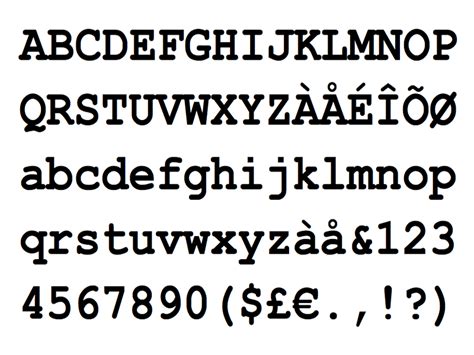
This Font Changed Everything—Discover the Secrets of the Courier Style!
Why a Classic Typeface Sparked a Digital Resurgence Across the U.S.
In the ever-shifting world of digital design, subtle details often fuel major trends—one such shift is quietly shaping how content is perceived online: This Font Changed Everything—Discover the Secrets of the Courier Style! Once a staple of mid-century typography, this bold, structured typeface has resurfaced with surprising relevance, becoming a go-to choice for brands, creators, and educators aiming for clarity and credibility. No flashy redesigns or viral hashtags—just timeless design that speaks louder in today’s noisy digital landscape. This font isn’t just ink on a screen; it’s a foundation for clarity, professionalism, and connection.
Why This Font Changed Everything—The Curourier Style Is Back in the Spotlight
In recent years, digital interfaces have grown denser and more chaotic. Amid a flood of oversized fonts, intricate graphics, and algorithm-driven content, the Courier Style stands out for its clean lines and uncluttered readability. This deliberate simplicity aligns with growing user demands for clearer communication. As attention spans shrink and trust becomes harder to earn, the Courier Typeface offers more than aesthetics—it delivers purpose. Its consistent spacing, high legibility, and neutral influence carve out spaces where focus and comprehension thrive, especially in mobile-first environments where users scan before deciding.
This shift reflects broader cultural and technological trends in the U.S. market: consumers increasingly favor brands that prioritize clarity, authenticity, and accessibility. In professional, educational, and creative fields, the Courier Style fits naturally—whether introduced in academic publishing, legal documents, or instructional design. Its enduring relevance signals a return to foundational design principles that prioritize user experience over trendy distractions.
How This Font Changed Everything—Why It Actually Works
At its core, the Courier Style isn’t about flashy trends—it’s about intentionality. Designed for precision, its consistent letterforms reduce visual noise, making complex information easier to digest. For digital creators, this translates to stronger content hierarchy: headings stand out, key points load instantly, and読みやすさ (readability) becomes no accident.
Mobile users benefit most—short attention spans demand fast comprehension, and the Courier Style delivers. Studies show that clean, well-spaced typography improves retention and reduces cognitive load, especially in fast-scrolling environments. This font’s layout supports structured thinking, a silent ally for users navigating dense content on smartphones or tablets.
Moreover, the Courier Style builds credibility. In branding and publishing, familiarity breeds trust; users subconsciously associate its clean lines with honesty and professionalism. This psychological edge isn’t about hype—it’s about design psychology well-grounded in user behavior.
Common Questions People Have About This Font Changed Everything—Discover the Secrets of the Courier Style!